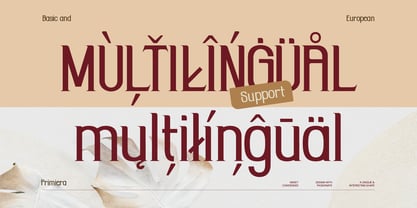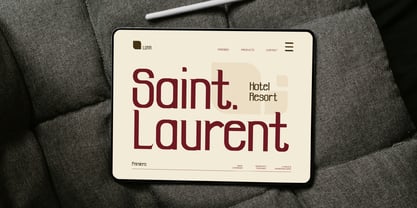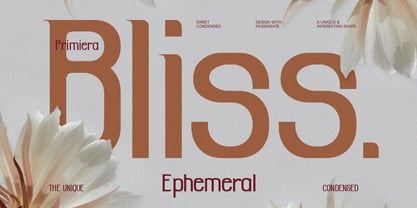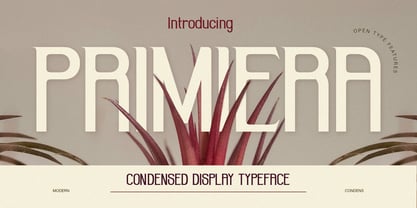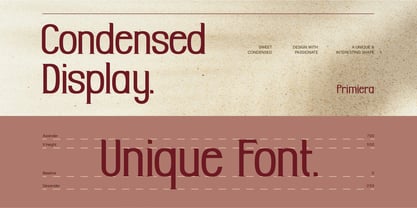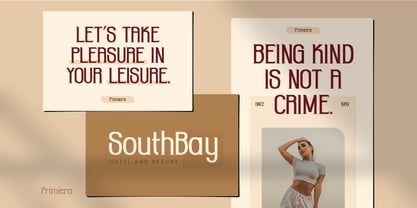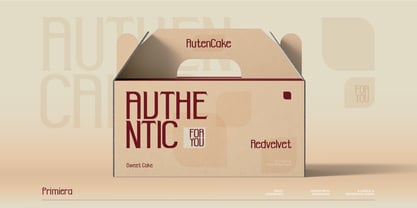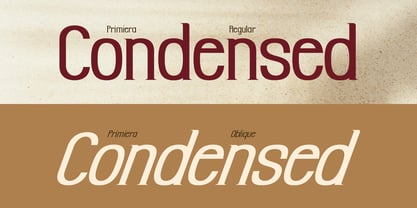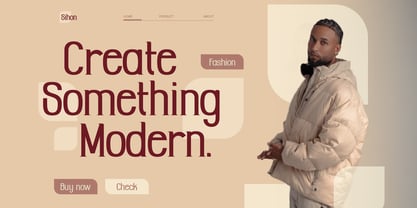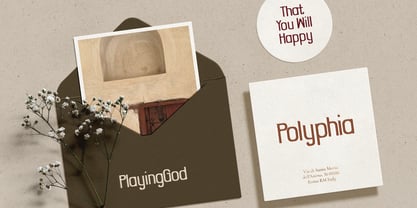
Primiera
von Burntilldead
Die Schriftfamilie Primiera wurde von Eric Kurniawan entworfen und von Burntilldead veröffentlicht. Primiera enthält 2 Stile und Familienpaketoptionen. Mehr über diese Familie
Introducing, Primiera, our sans serif condensed font! Designed for maximum readability and visual impact, this condendsed comes in both regular and oblique style, making it perfect for variety of design projects. Primiera offers a clean, minimalist and modern looks that’s easy on the eyes. With support for multiple languages (basic european acent), it’s the ideal choice for global brands. Whether you’re designing a logo, creating a poster, or developing a website.
Designer: Eric Kurniawan
Foundry: Burntilldead